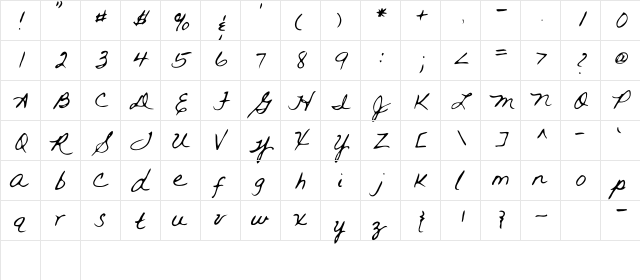
Rai Regular Font Preview
Rai Regular
Design Context for Rai Typeface
Rai is a composed and adaptable typeface that performs quietly and consistently across a wide range of design contexts.